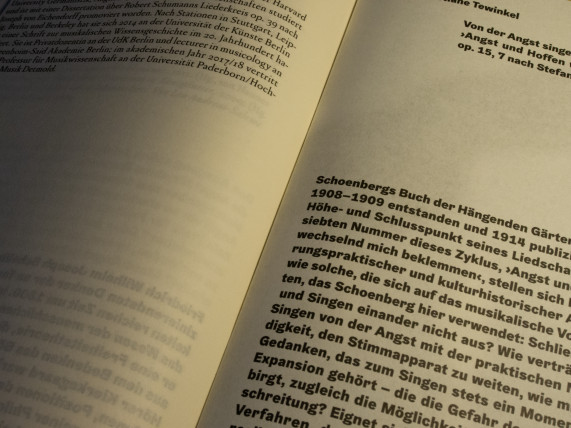
Angst & Freiheit
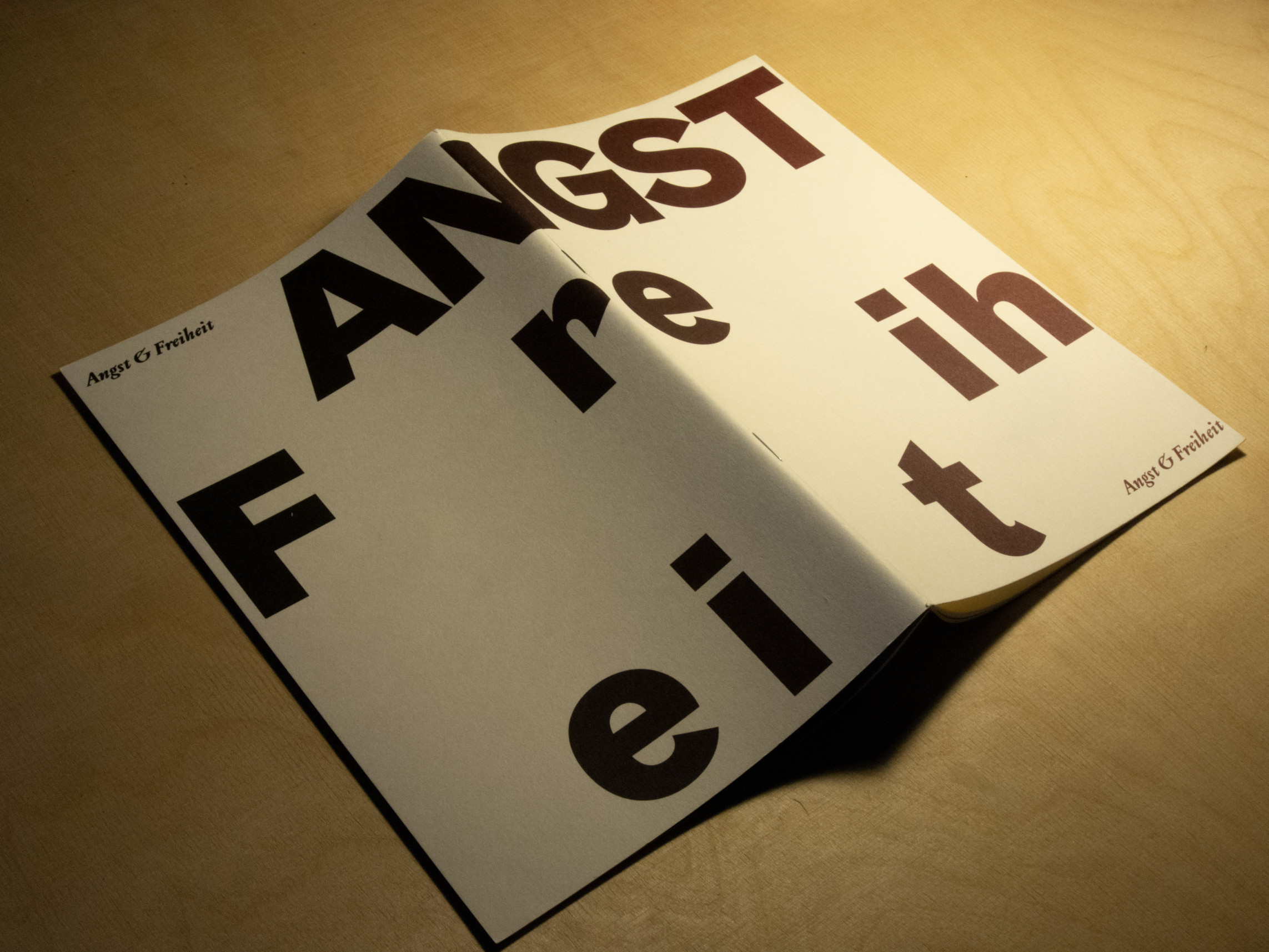
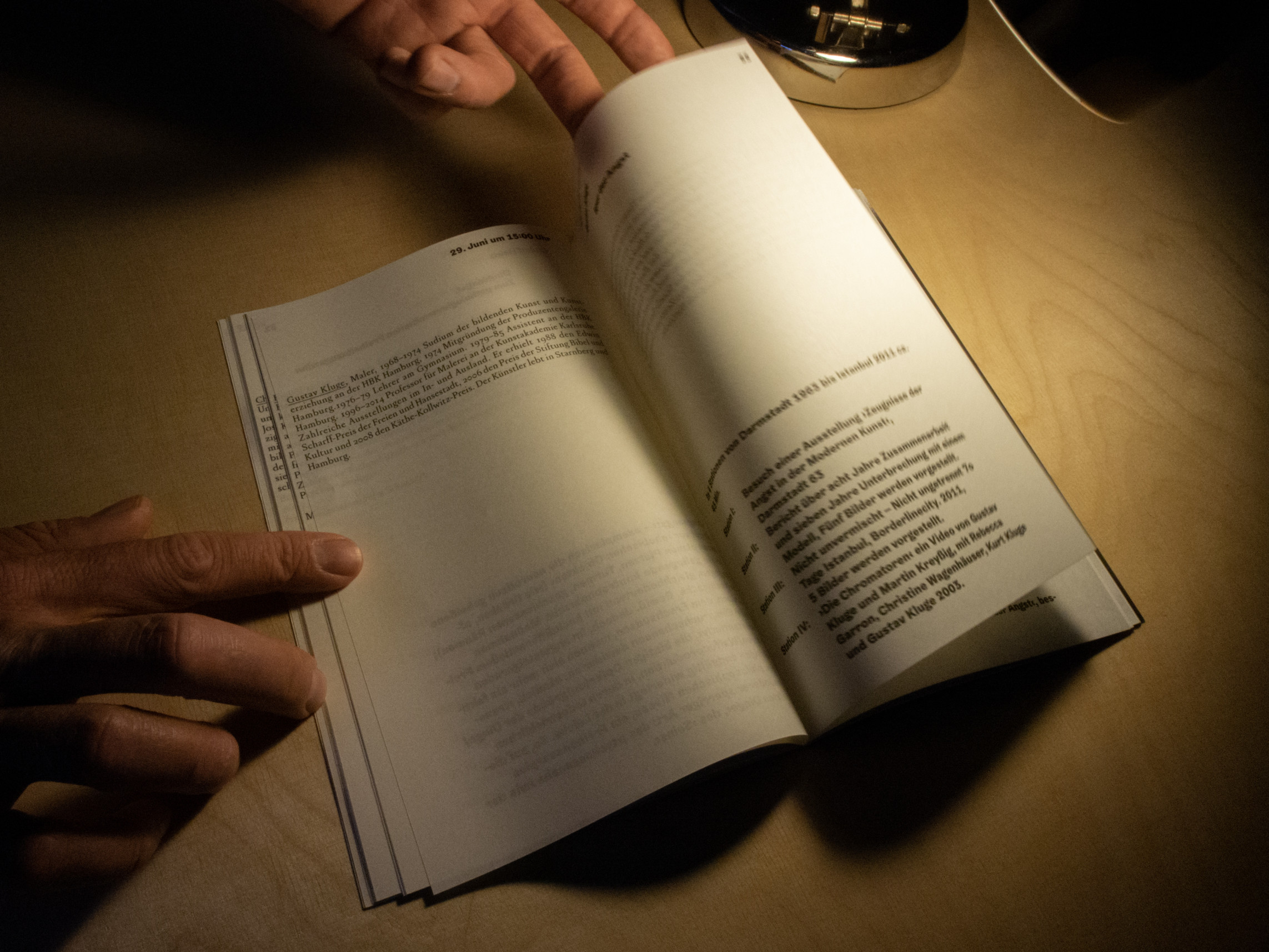
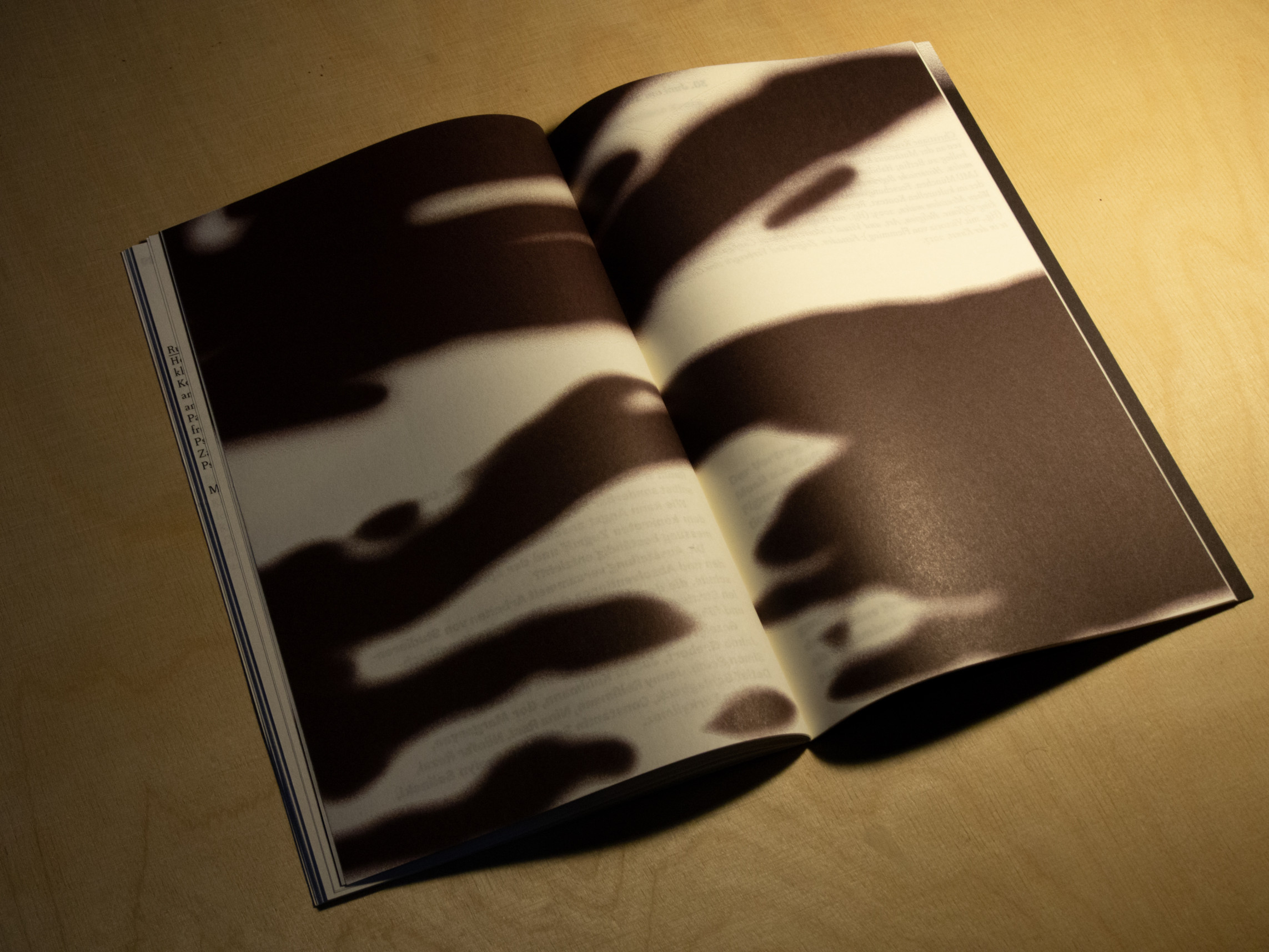
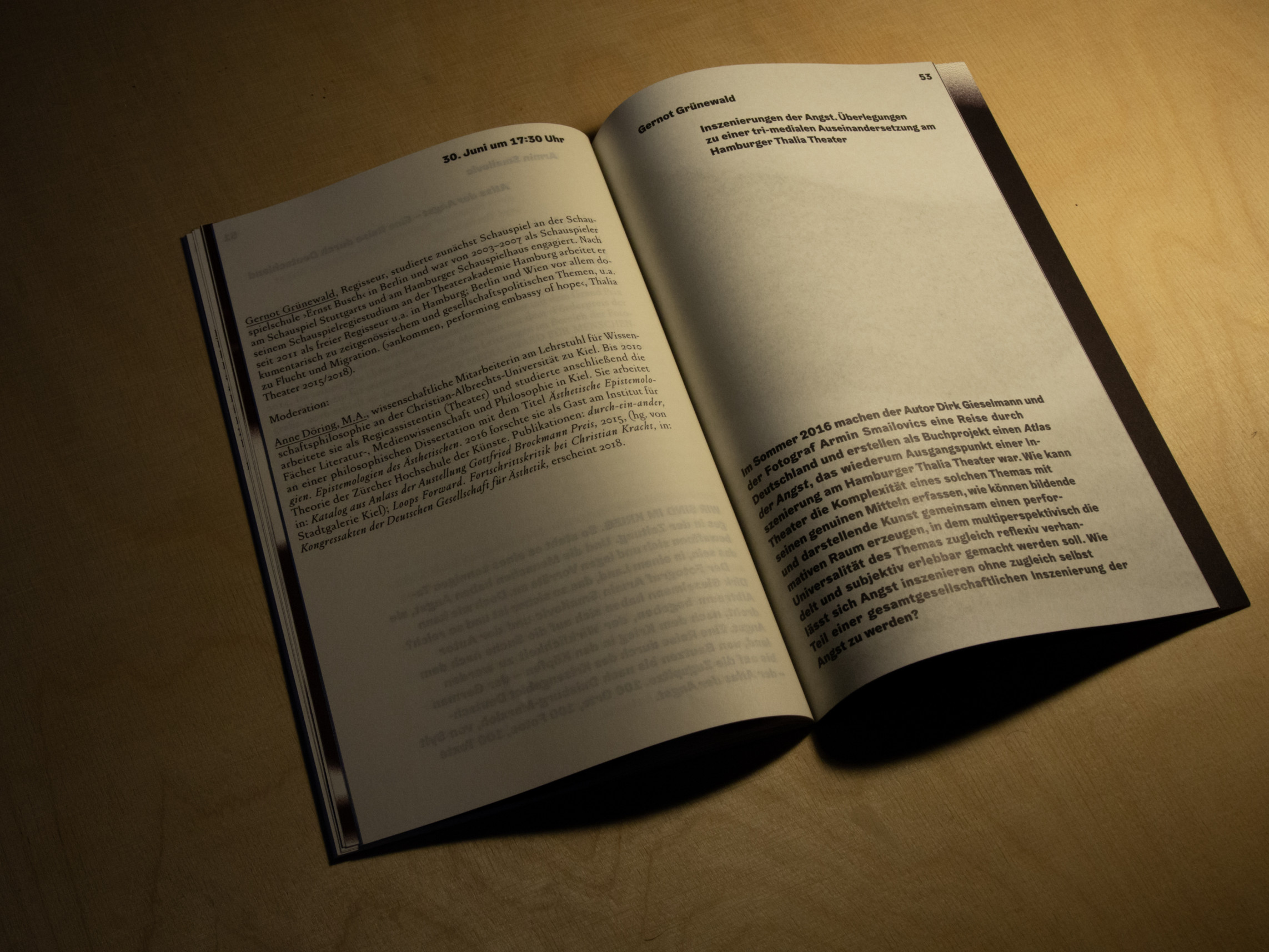
Angst und Freiheit (Fear and Freedom) was a symposium at the Muthesius University of Fine Arts in Kiel. In the program booklet, the claustrophobic arrangement of the texts is juxtaposed with the free flow of the illustrations, but also merges with each other. The dark color gradient contributes to the notion of discomfort and the typographic design emits a feeling of peculiarity and accessibility at the same time.
Typeface: Gräbenabch by Camelot Typefaces
& Pentagramme OSF by Storm Type